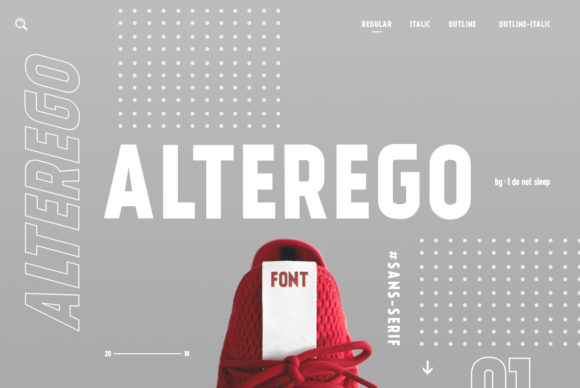
The Alterego Font: A Designer’s New Best Friend
I’ll never forget the design project that led me to discover the Alterego font. I was working on a branding campaign for a trendy new coffee shop, and I was struggling to find the perfect font to capture their modern, edgy vibe. That’s when I stumbled upon Alterego, a powerful sans serif font that instantly caught my attention. Its sturdy and firm shape, balanced lines, and modern touch made it the perfect fit for the project. In this article, I’ll share my experience with Alterego, its features, and how to make the most of it in your designs.
An Honest Review of Alterego Font
What I Love About Alterego ✨
- ✅ Versatility: Alterego is perfect for a wide range of design projects, from websites and branding to logos, magazines, posters, and films.
- ✅ Readability: The font’s clear and balanced lines make it easy to read, even at small sizes.
- ✅ Modern Touch: Alterego’s sleek design gives it a modern and trendy feel that’s perfect for contemporary brands.
- ⚠️ Limited Extras: Alterego doesn’t come with a wide range of extra glyphs or OpenType features, but it does offer some stylistic alternates.
- ⚠️ Not Ideal for Body Text: While Alterego is great for headings and titles, it may not be the best choice for body text due to its modern, edgy feel.
The Story Behind Alterego
Alterego was designed by a team of typographers who wanted to create a font that embodied the perfect balance of modernity and stability. Inspired by the world of architecture and engineering, they crafted a font that exudes confidence and strength. With its sturdy shape and balanced lines, Alterego is the perfect choice for designers looking for a reliable and versatile font.
| Font Name | Alterego Font |
| Author | I Do Not Sleep |
| What is the Alterego font best used for? | Alterego is perfect for headings, titles, logos, branding, and any design project that requires a modern and sturdy sans serif font. |
| Does Alterego come with OpenType features? | Yes, Alterego offers some OpenType features, including stylistic alternates. |